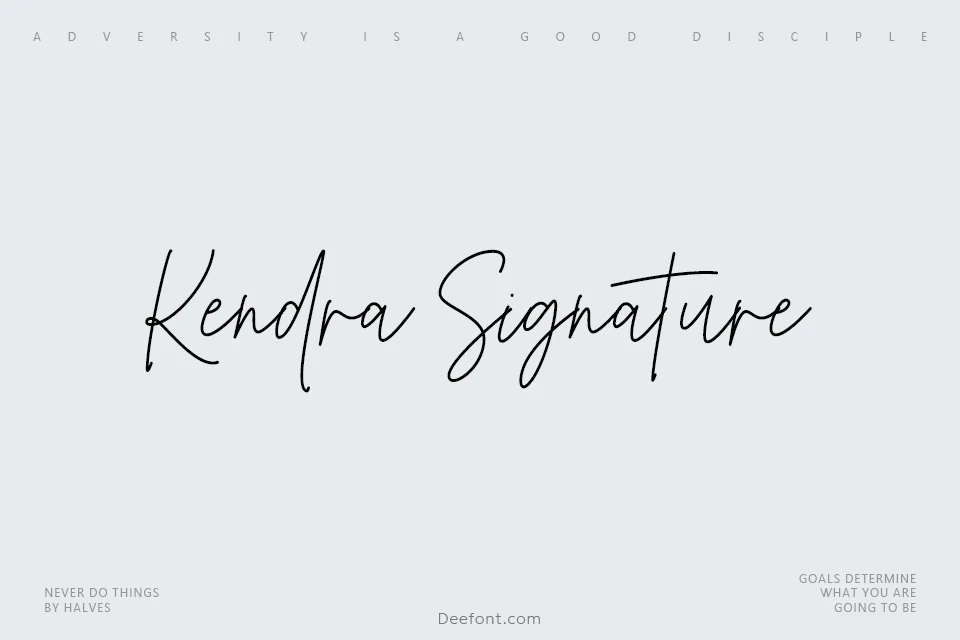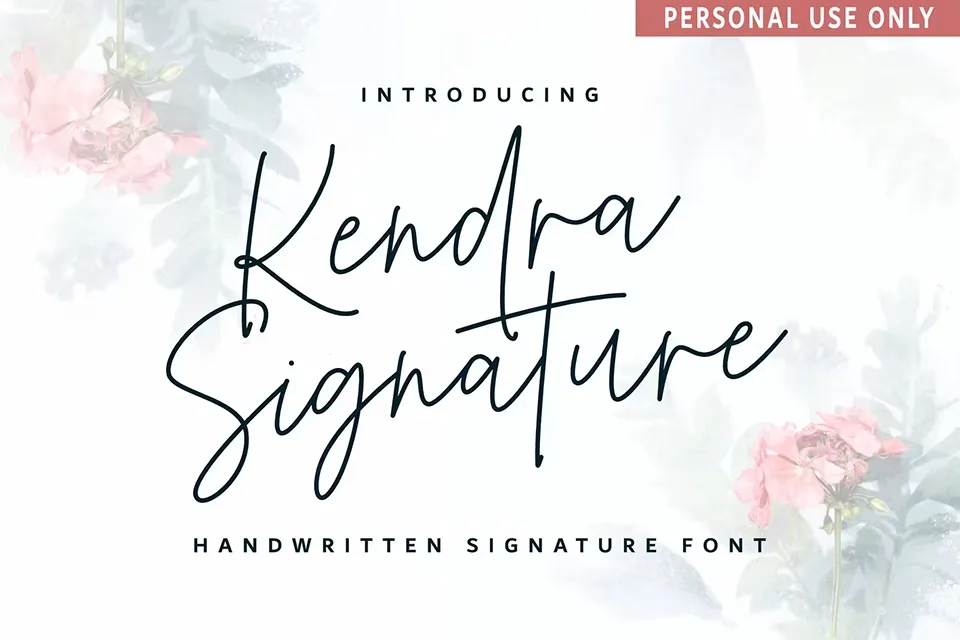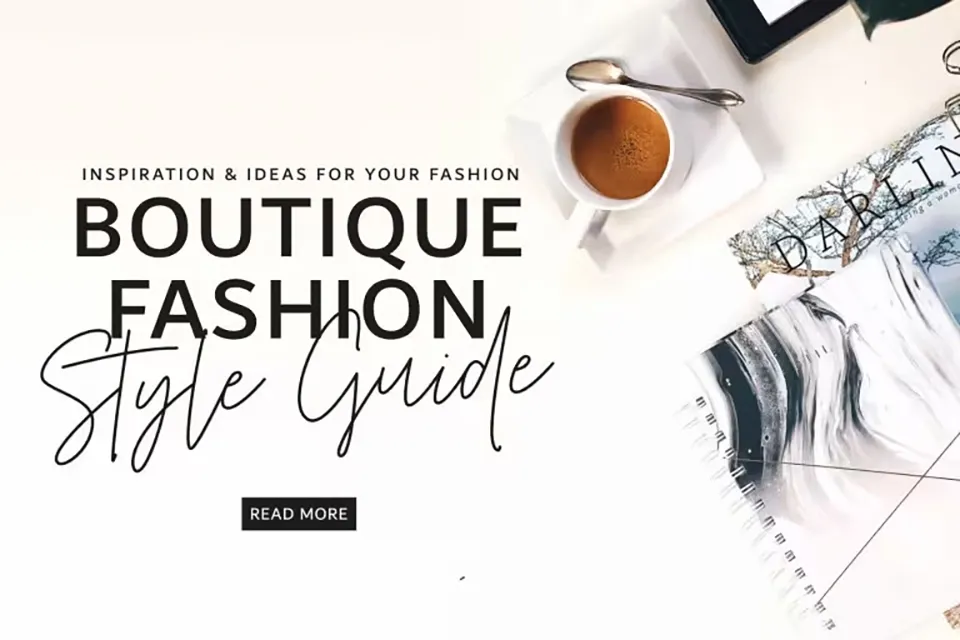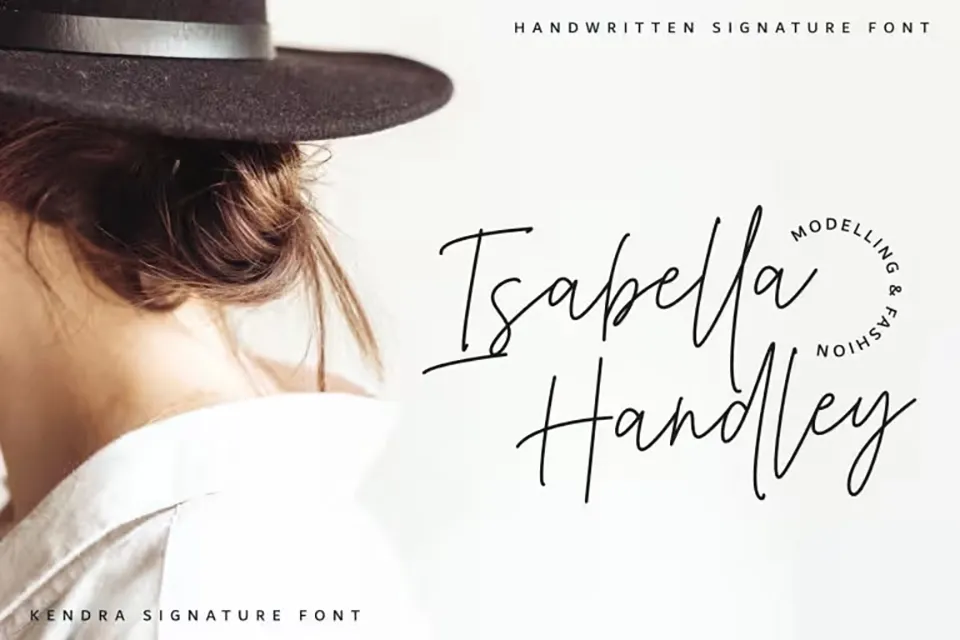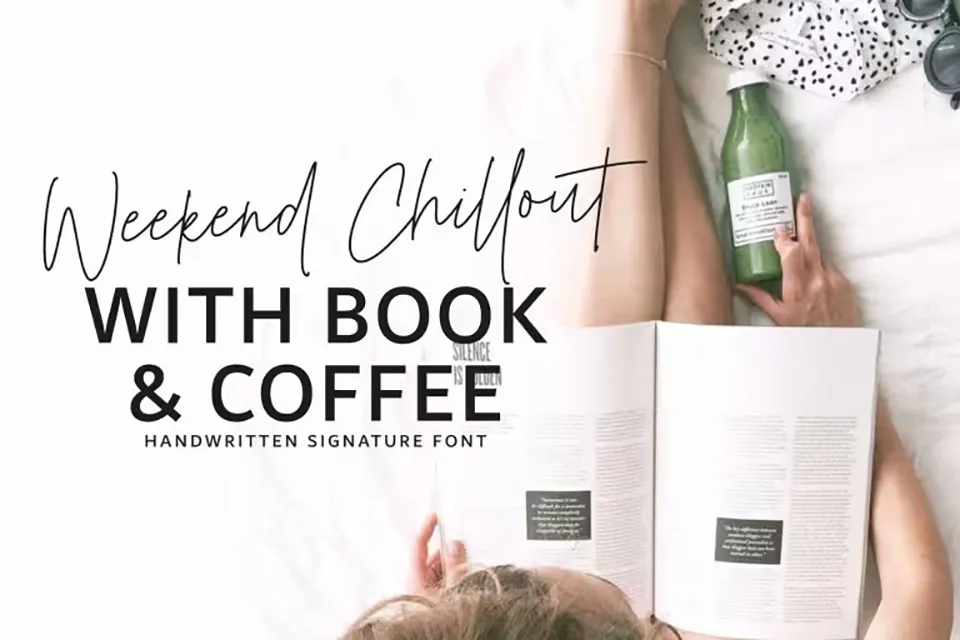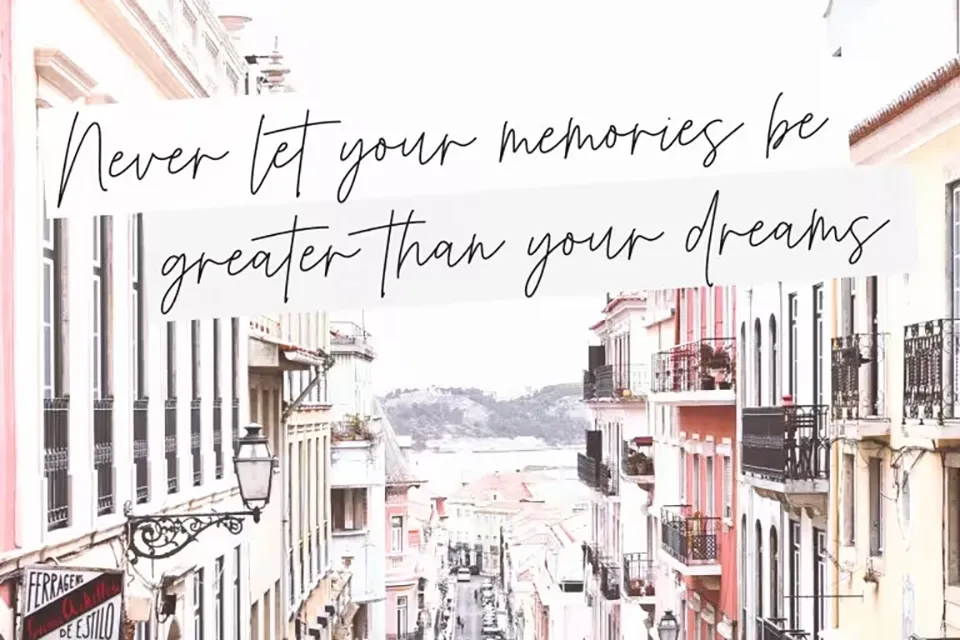
Kendra Signature Font
Kendra Signature Font is a modern handwritten signature script with a monoline, stylish design that brings an authentic and elegant touch to your projects. Perfect for branding, websites, blog headers, personal branding, logos, social media, advertisements, movies, TV broadcasts, and more, this font offers versatility and sophistication for a wide range of creative applications.